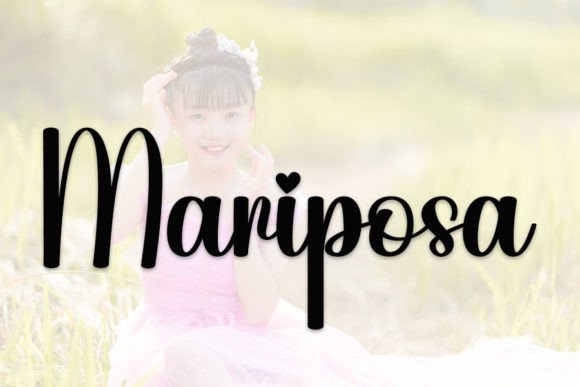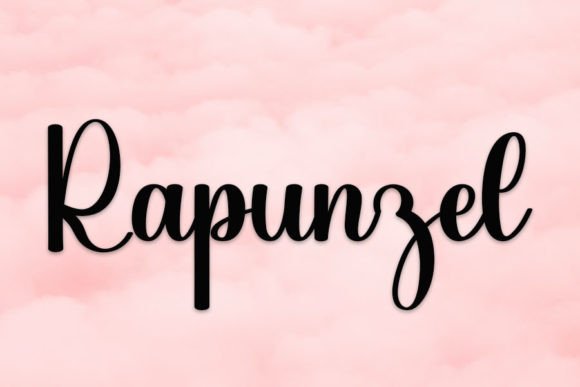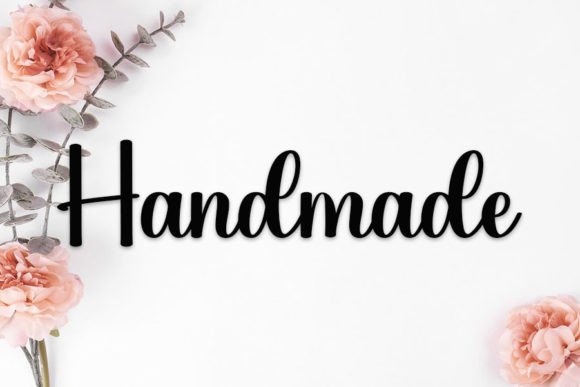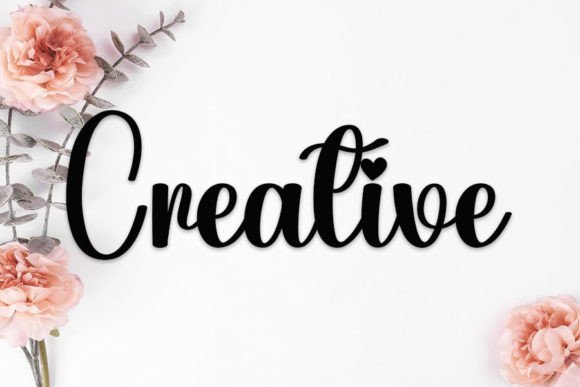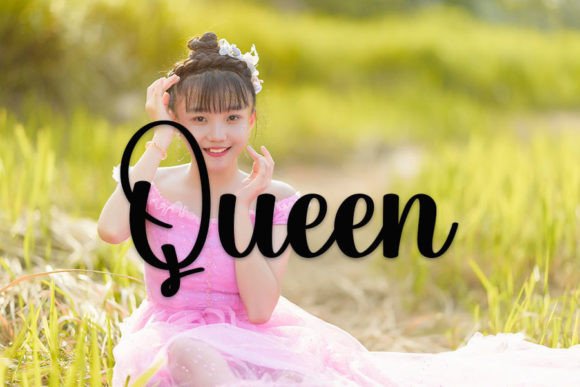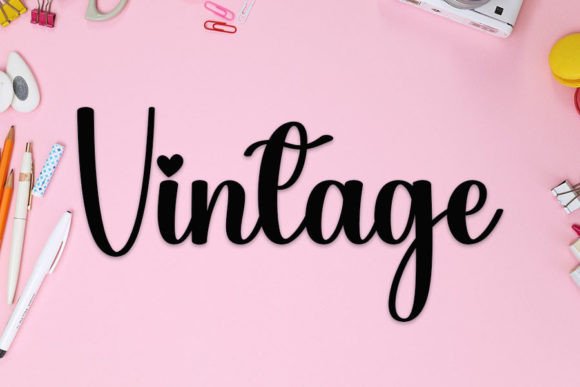
The Magical World of Barbie Font: A Designer’s Delight
I’ll never forget the time I was working on a project for a fashion brand, and I was struggling to find the perfect font to match their elegant and sophisticated vibe. I tried countless fonts, but none seemed to fit the bill. That was until I stumbled upon the stunning Barbie font. Its beautiful, handwritten curves and elegant touch instantly captivated me, and I knew I had found the perfect fit. In this article, I’ll share my love for the Barbie font, its features, and how to make the most of it in your designs.
An Honest Review of Barbie Font
What I Love About Barbie Font
- ✨ Elegant and sophisticated feel, perfect for fashion, beauty, and lifestyle brands
- ✅ Beautifully crafted handwritten curves and lines
- 💫 Timeless style that works well for both digital and print designs
- 🎨 Highly versatile and can be used for a wide range of creative projects
While I adore the Barbie font, there are a few things to keep in mind:
- ⚠️ The font may not work well for very long texts or paragraphs, as it can become a bit tedious to read
- 🤔 Some of the letters may be a bit too ornate or decorative for very simple or minimalist designs
The Backstory of Barbie Font
The Barbie font was designed by a team of skilled typographers who wanted to create a font that embodied the spirit of elegance and sophistication. Inspired by classic calligraphy and handwriting, the Barbie font is a beautiful and timeless addition to any design project.
Q: What is the Barbie font perfect for?
A: The Barbie font is perfect for designs that require an elegant and sophisticated touch, such as fashion, beauty, and lifestyle brands.
Q: Is the Barbie font easy to read?
A: The Barbie font is generally easy to read, but it may not be suitable for very long texts or paragraphs.